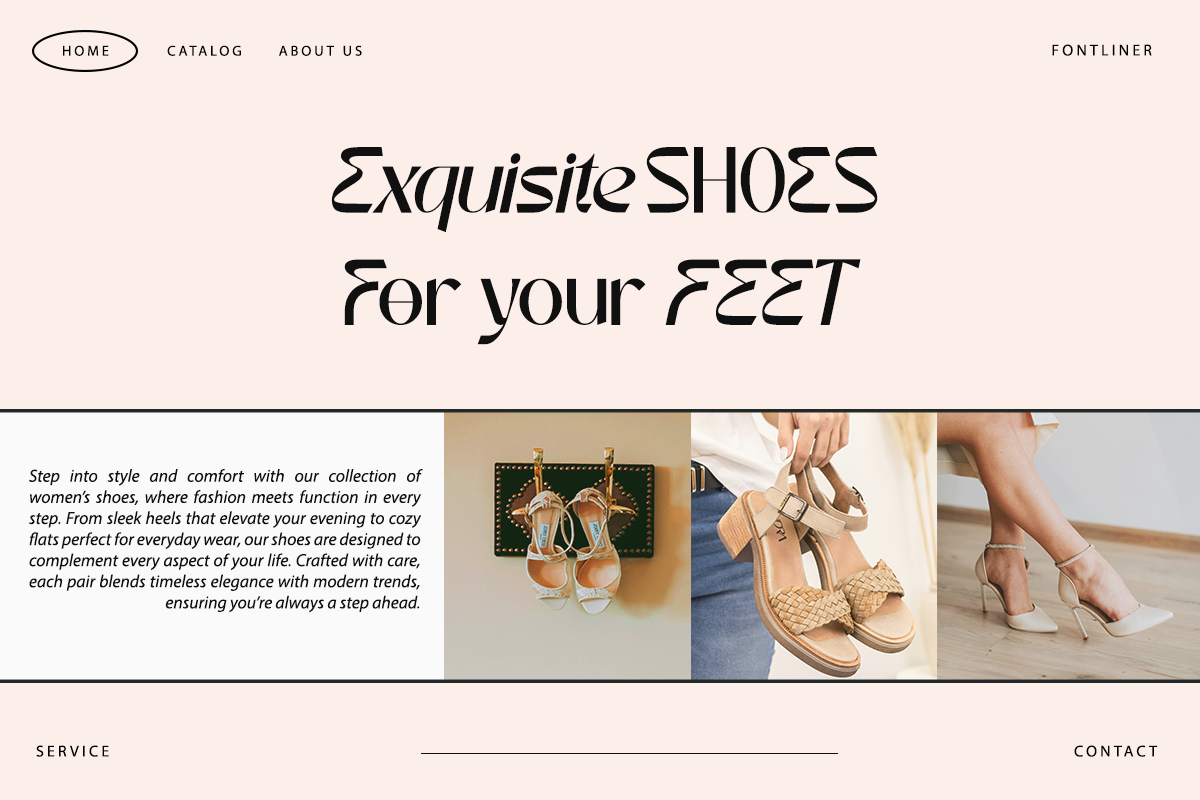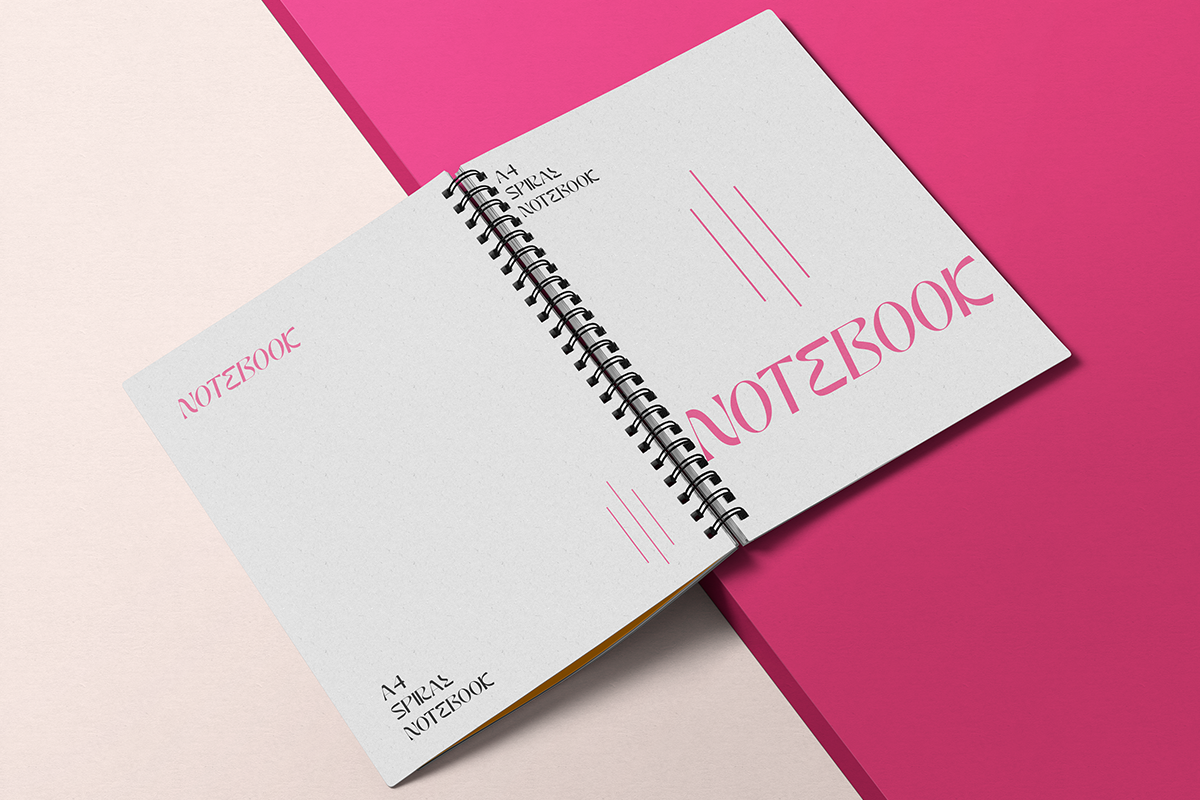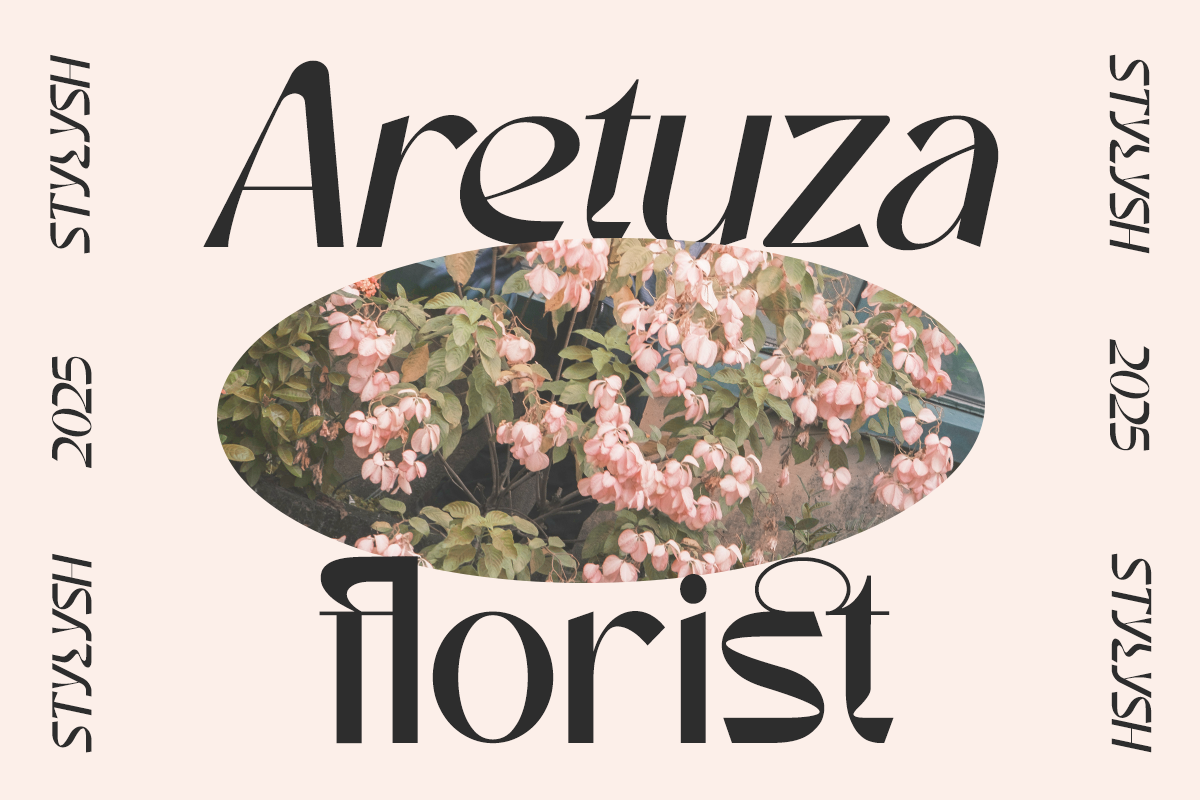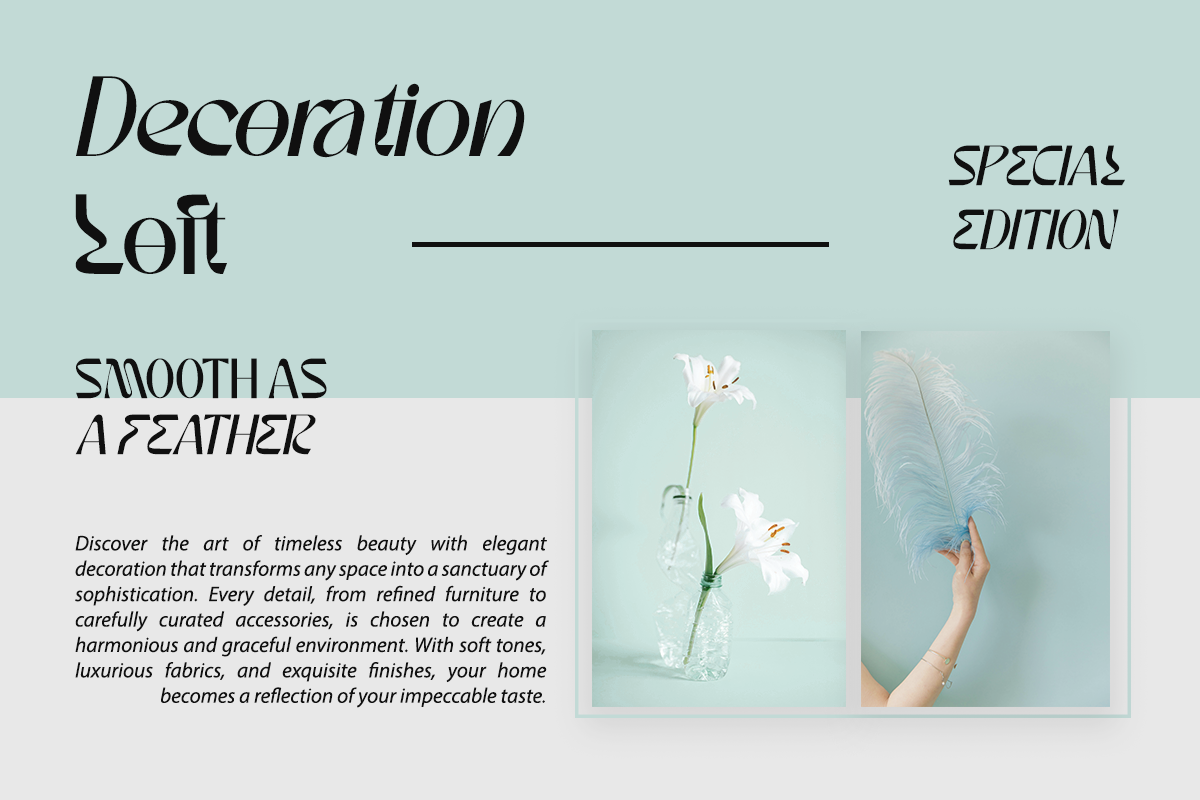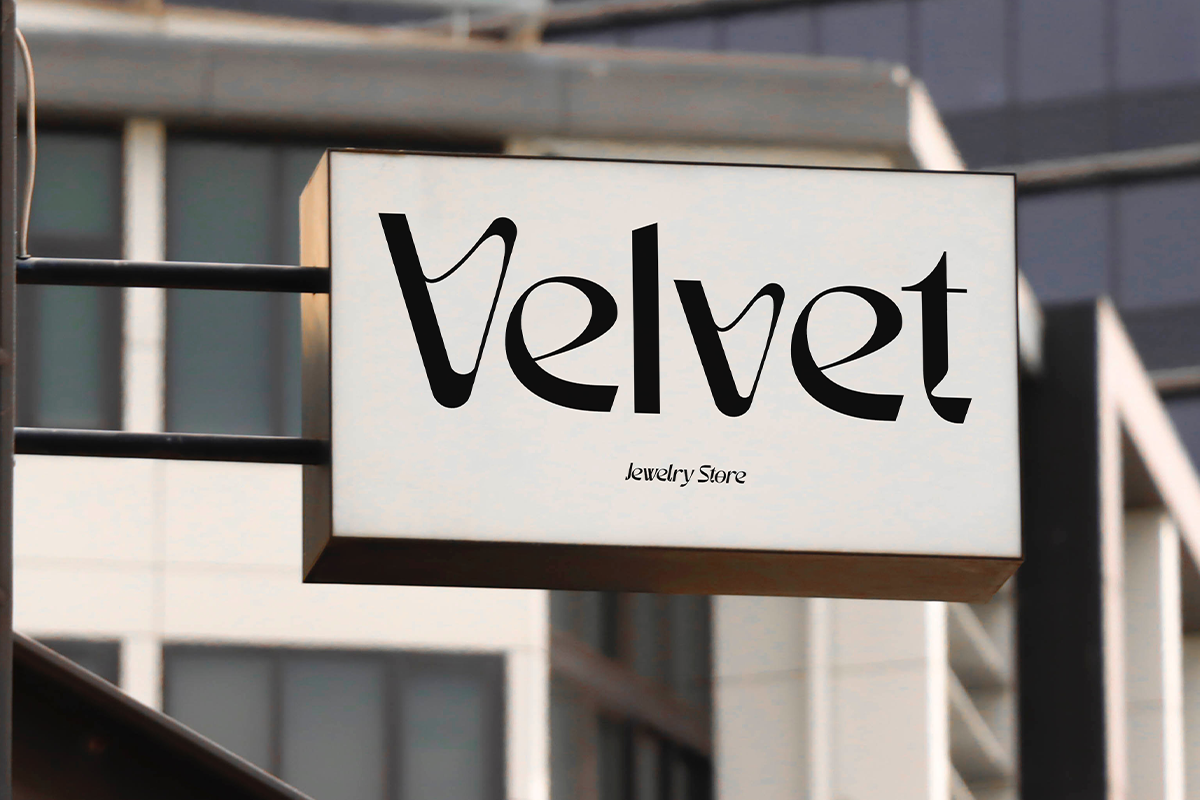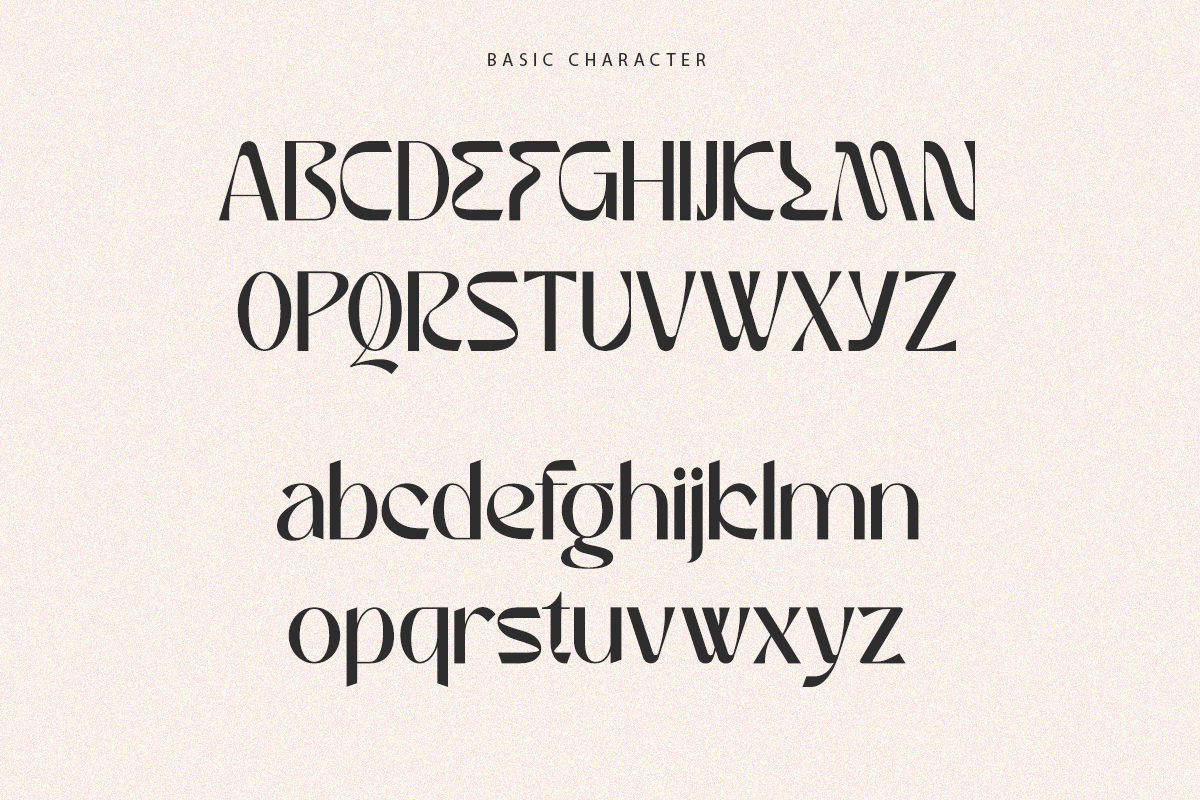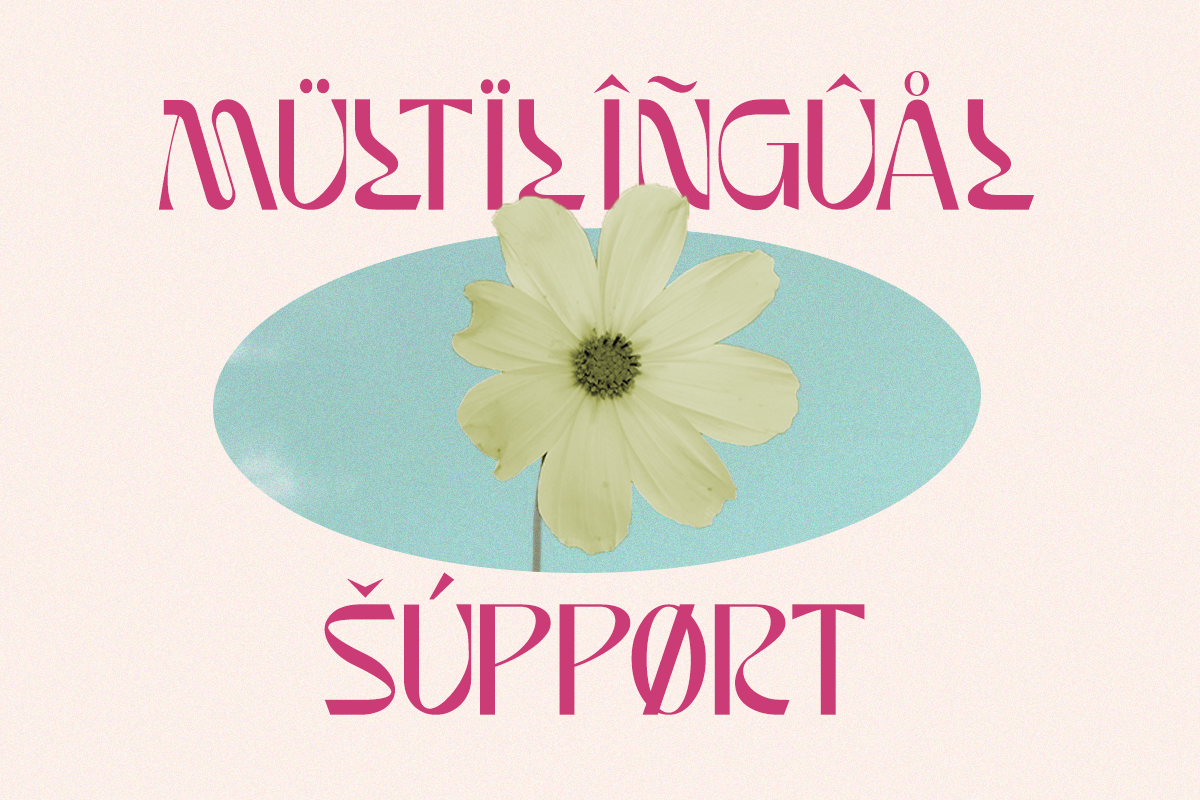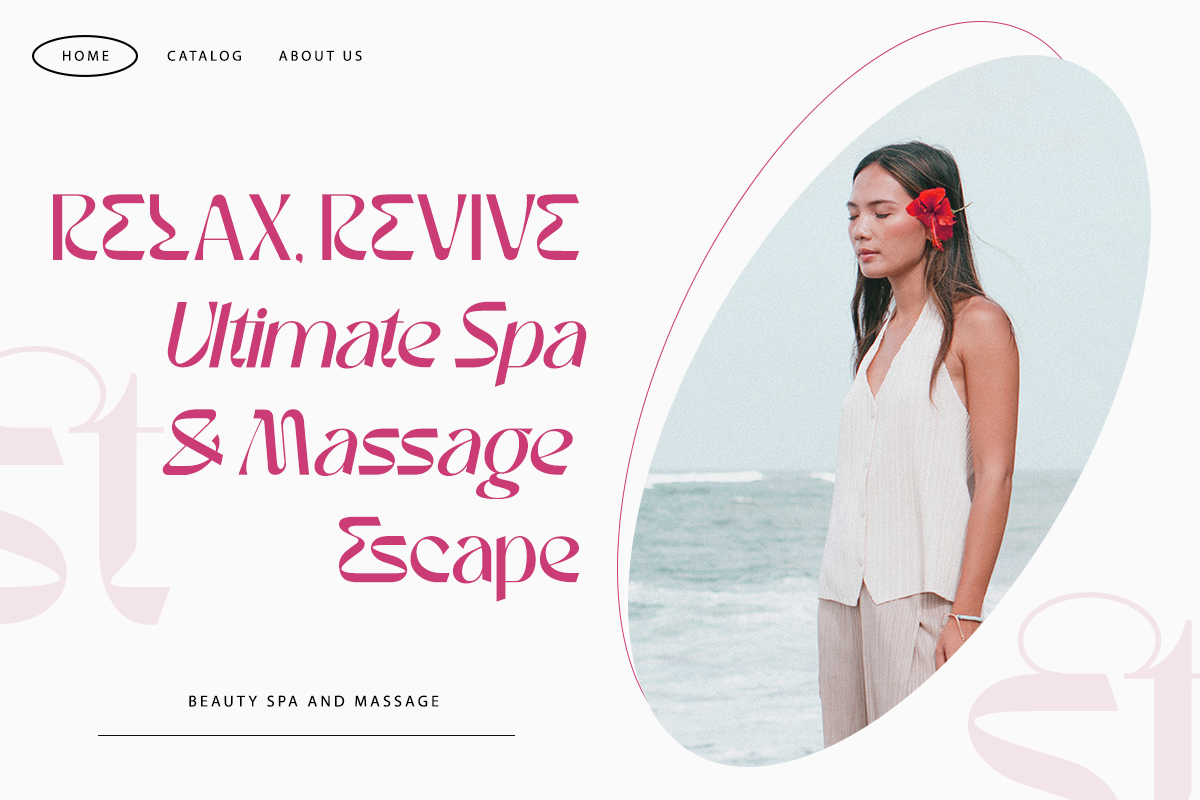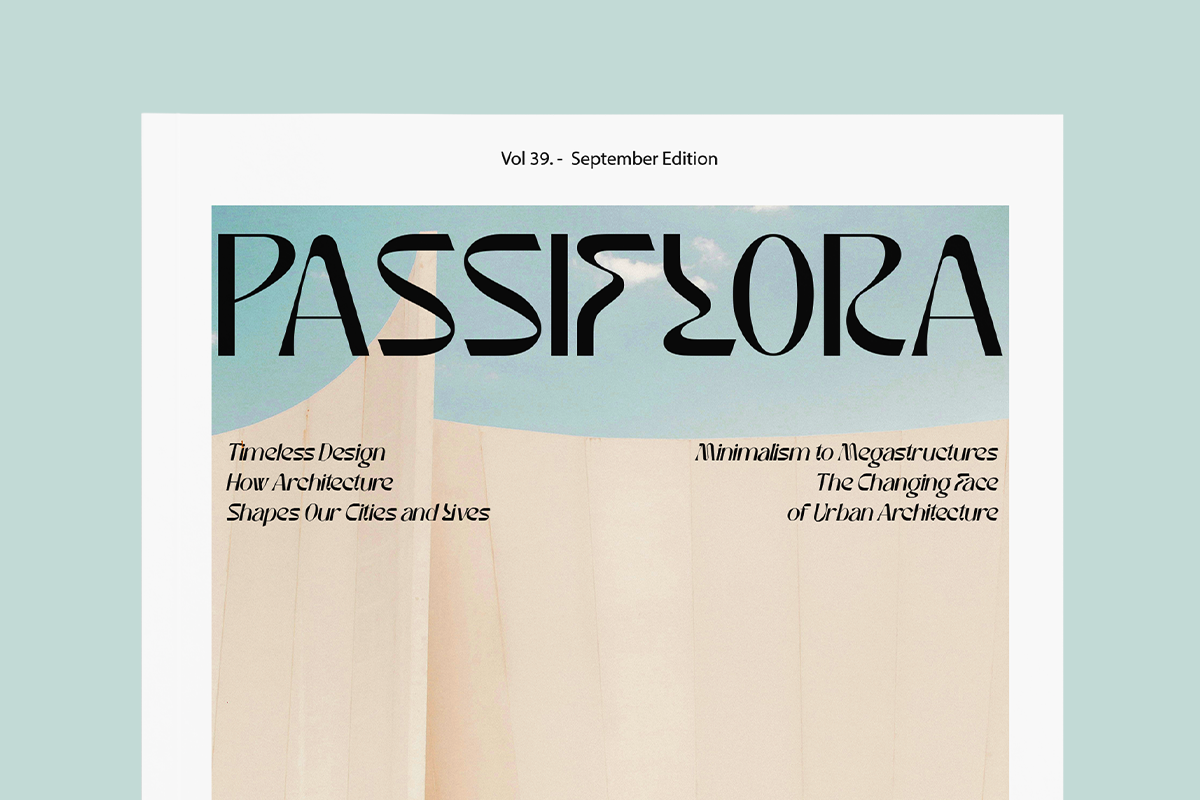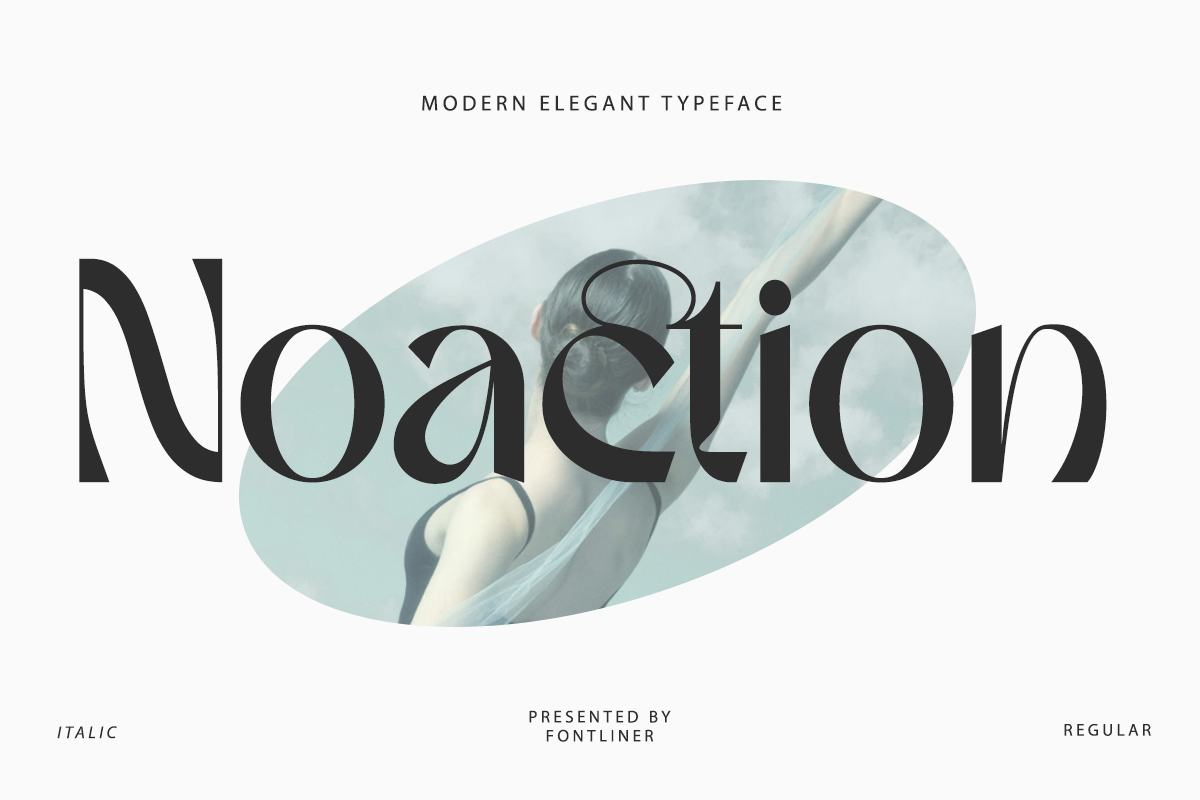
Noaction | Modern Elegant Font
Noaction is an elegant modern typeface. The contrast is beautiful and makes it very pure. Give your text a little elegance and sweetness with some character ligatures and alternates characters in this font. Noaction is ideal for branding, editorial design, and web design, with this font adding a level of elegance to your designs
- Alternates Charcter